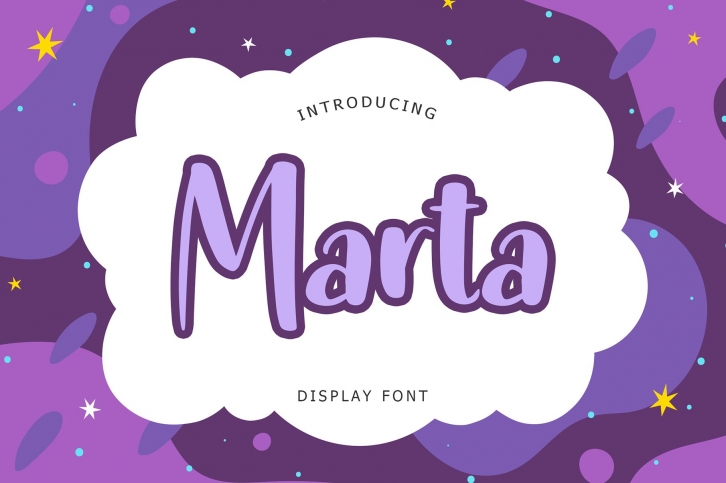
Marta Display Font Download
Marta Display is a great font that was designed by Formatika Studio. Imagine the amount of combinations you can create using this font! The archive is 12.53 MB and it was released on December 3, 2020. Marta Display looks beautiful on wedding invitations, greeting cards, logos, posters, labels, t-shirt designs, logos, business cards and is perfect for use in ink or watercolor works, fashion, magazines, packaging and food menus, children's books and more!